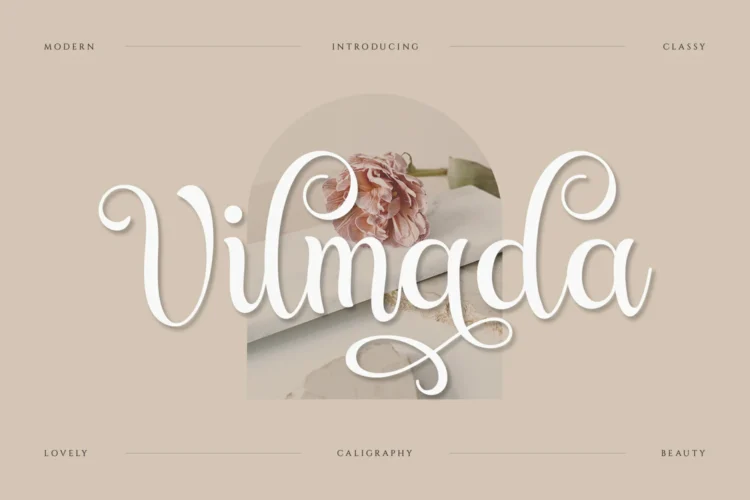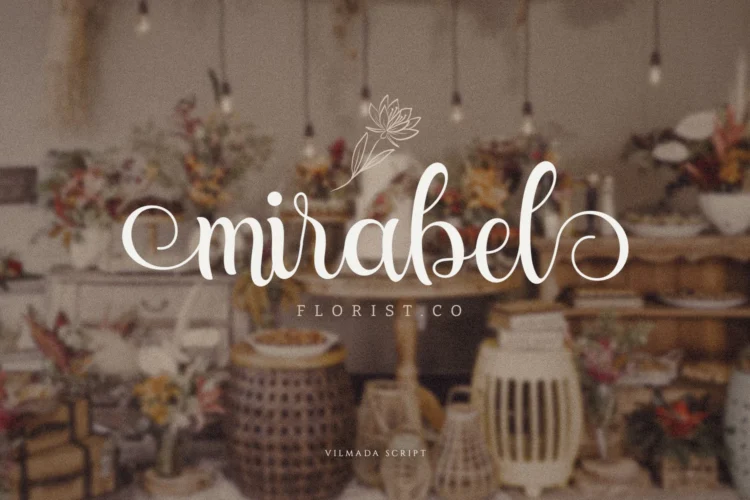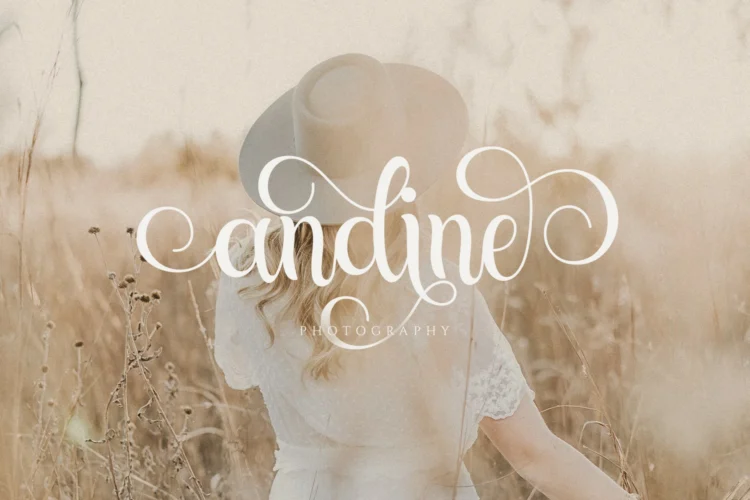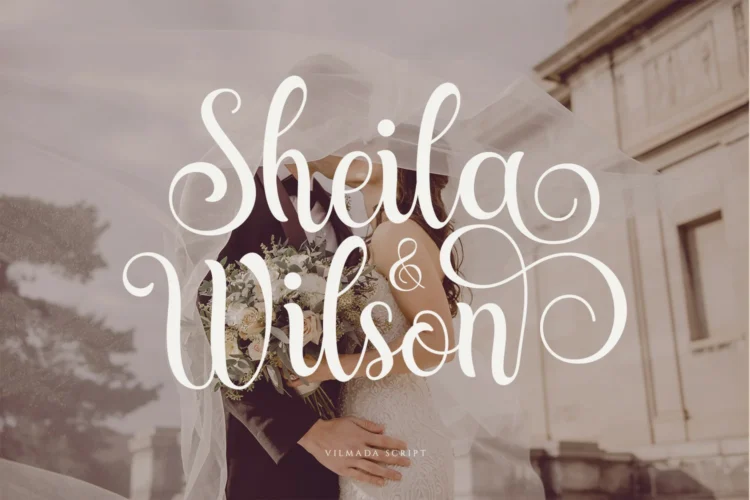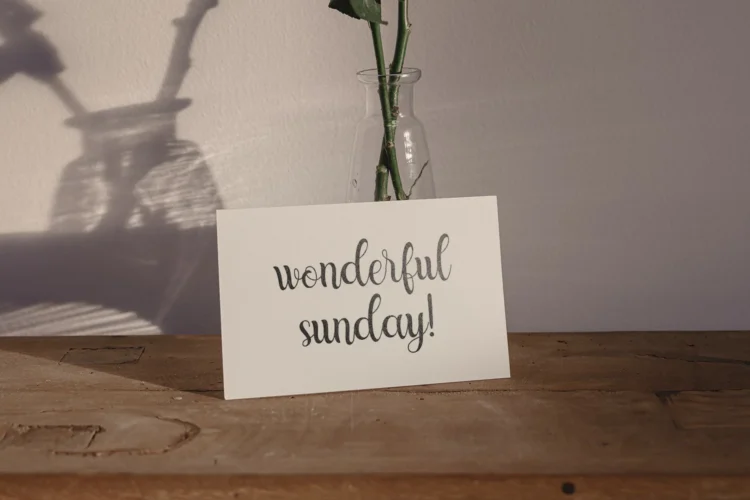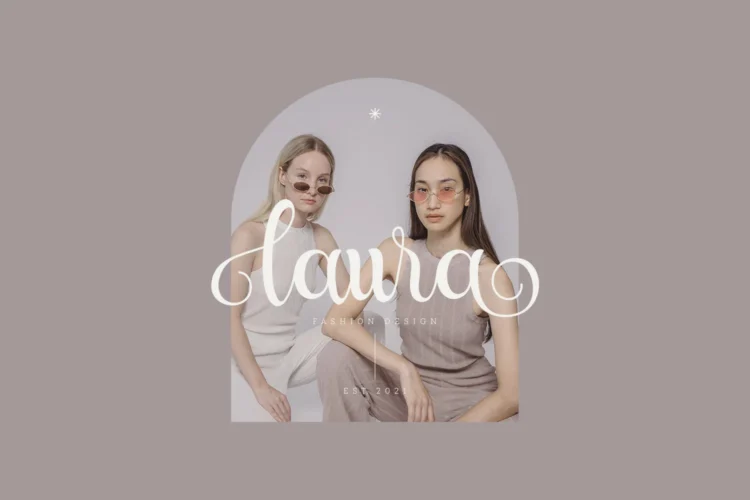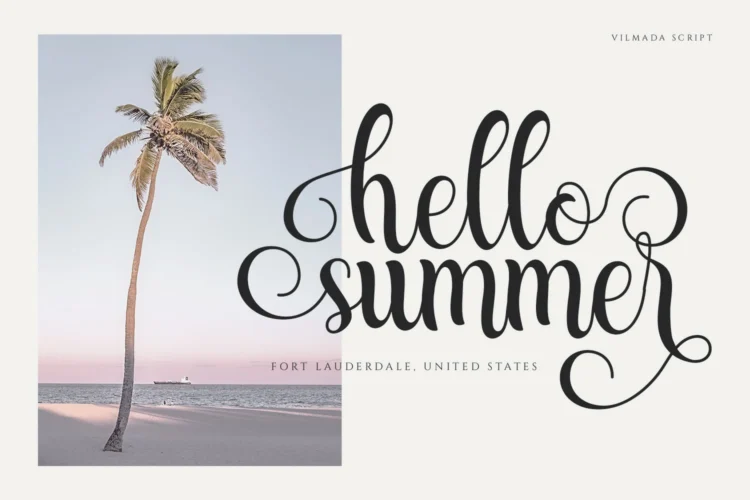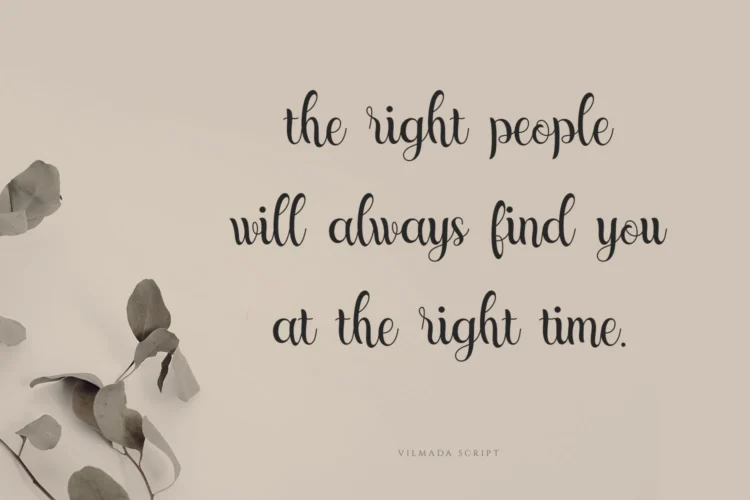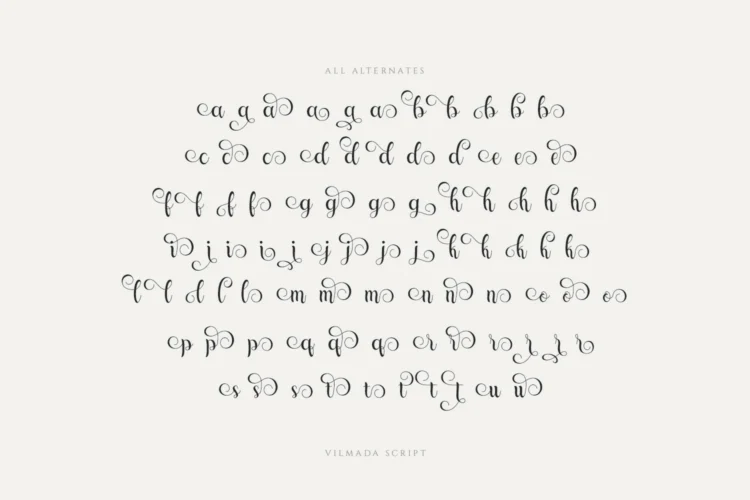
Vilmada Font – Elegant Script Font for Branding, Weddings & Luxury Designs
Vilmada Font is a beautifully crafted script font that blends modern elegance with timeless charm. Designed with smooth curves and refined strokes, this handwritten font is ideal for projects that require sophistication and personality. Whether you’re creating luxury branding, fashion logos, or wedding invitations, Vilmada adds a unique, classy touch.
As a cursive font with a calligraphic style, Vilmada embodies the perfect balance between artistry and readability. Its swashes and ligatures make it an excellent choice for signature fonts, cosmetic packaging, and other aesthetic fonts in the beauty and lifestyle industry.
With its versatility, Vilmada is more than just a logo font it’s also a wedding font for elegant stationery, a branding font for high-end businesses, and a modern font for digital designs.
Vilmada Font Perfect for :
Vilmada Font is versatile and works beautifully for :
- Wedding Invitations & Stationery – Create romantic and elegant designs.
- Branding & Logos – Perfect for fashion, luxury, and cosmetic brands.
- Social Media & Marketing – Stylish typography for Instagram posts, ads, and banners.
- Packaging Design – Adds a premium aesthetic for beauty and lifestyle products.
- Photography & Portfolio – Enhance visuals with a classy handwritten look.
- Personal Signatures – Ideal as a signature font for unique personal branding.